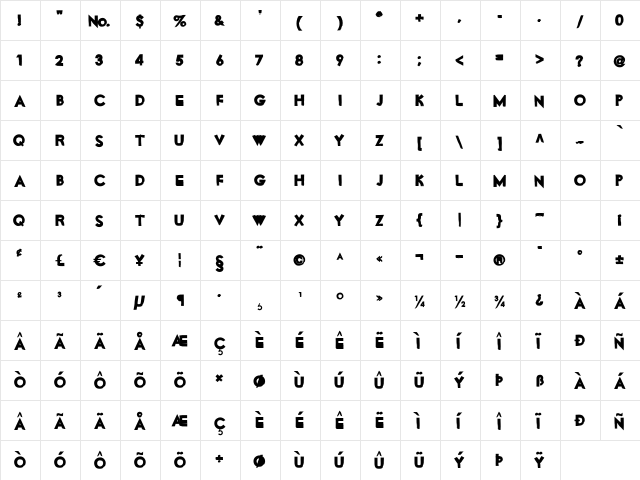
MotorOil Regular
Design Context for MotorOil Typeface
MotorOil takes a measured approach to typography — its balanced proportions and neutral character make it a reliable workhorse for both digital and print work.